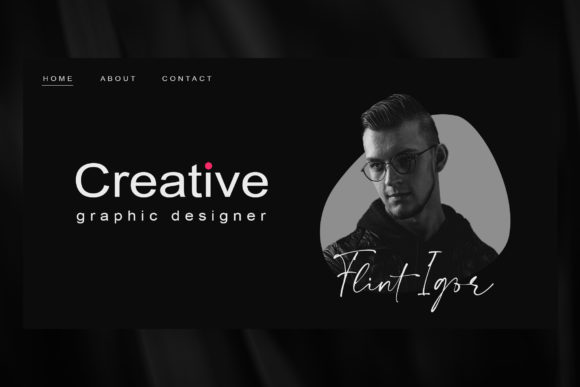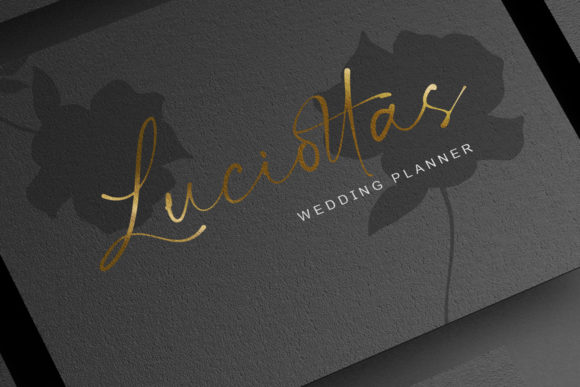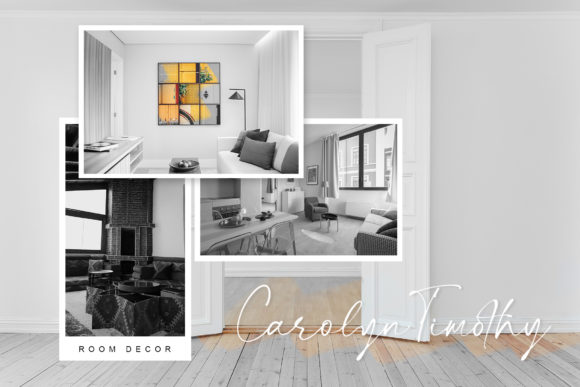
About Jason Signature Font
Jason Signature is a captivating and enchanting handwritten font that adds a touch of elegance and charm to any design. Its versatile script style makes it suitable for a wide range of applications, from heartfelt greeting cards to eye-catching headlines.
The flowing and graceful letterforms of Jason Signature make it perfect for creating romantic and personalized greeting cards. Whether it’s for weddings, anniversaries, or special occasions, this font adds a sense of warmth and affection to your heartfelt messages, making them even more memorable.
The font’s versatility allows it to be used in various design projects. From elegant invitations to stylish headlines, Jason Signature brings a sense of sophistication and flair that captures the attention of the audience and leaves a lasting impression.
For branding and logo designs, Jason Signature adds a personal and authentic touch to your brand identity. Its handwritten look conveys a sense of individuality, making your brand stand out and resonate with your target audience.
Jason Signature’s romantic and versatile nature extends to social media posts and blog graphics, where it can enhance the visual appeal and storytelling of your content. It brings a touch of elegance and charm that resonates with readers and creates a strong connection with your brand or message.
In summary, Jason Signature is an enchanting and versatile handwritten font that adds a romantic and sophisticated feel to your design projects. Its flowing and graceful letterforms make it ideal for greeting cards, headlines, invitations, and more. With PUA encoding, accessing its beautiful glyphs and swashes is effortless, giving you endless creative possibilities. Embrace the charm of Jason Signature and let it elevate your next project to a whole new level.